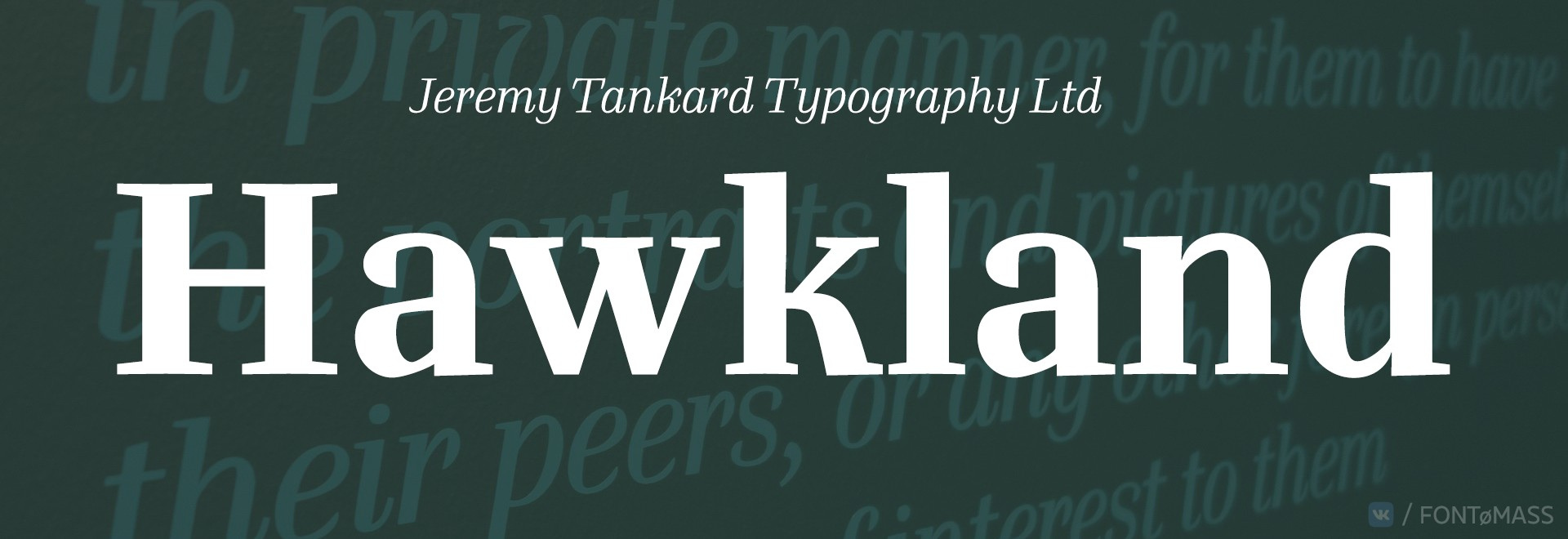
Hawkland Font
Hawkland Font is perfect for outdoor adventure branding, wildlife conservation campaigns, hunting equipment marketing, nature photography logos, raptor research communications, wilderness education materials, environmental protection signage, and powerful nature-themed promotions.
What makes Hawkland Font exciting is its predatory precision that embodies the keen focus and natural power of raptors with wilderness authenticity and environmental strength. The font features sharp letterforms with hawk-inspired proportions and predatory character that evoke soaring eagles, keen eyesight, and the magnificent power of birds of prey and wilderness mastery. Its distinctive raptor styling and natural appeal communicate focus, power, and environmental authority, making every message feel guided by natural instinct and touched by the fierce beauty of predatory excellence and wilderness dominance.
The Hawkland Font family includes regular weight with uppercase and lowercase letters, numerals, punctuation marks, and special characters. Premium versions often feature sharp alternates and nature-inspired elements that enhance the predatory, wilderness aesthetic perfect for outdoor and environmental applications.
This powerful wilderness typeface brings instant authenticity and environmental credibility to any nature-focused project. Hawkland Font Free Download delivers exceptional results for outdoor businesses and conservation organizations seeking to communicate environmental power, wilderness expertise, and natural authority to outdoor enthusiasts and nature conservationists.
The predatory character of Hawkland Font makes it particularly valuable for wildlife organizations, outdoor equipment manufacturers, and environmental education centers. Its excellent readability ensures nature messaging and conservation communications remain clear while maintaining the distinctive raptor aesthetic that appeals to audiences seeking authentic wilderness experiences and environmental conservation.
Environmental conservation marketers appreciate how Hawkland Font effortlessly conveys wilderness authenticity and natural power. The font's sharp proportions and predatory details create compelling brand materials that establish connections with audiences who value environmental protection, wilderness conservation, and the powerful beauty of raptor excellence and natural predatory mastery.
The versatile power of this typeface extends to outdoor education, wildlife photography, and environmental consulting where raptor authenticity enhances natural credibility and wilderness appeal. Hawkland Font Free Download provides creative professionals with an essential tool for developing memorable, power-driven designs that resonate with audiences who embrace wilderness conservation, environmental protection, and the keen precision of hawk-like focus in their outdoor and conservation experiences.